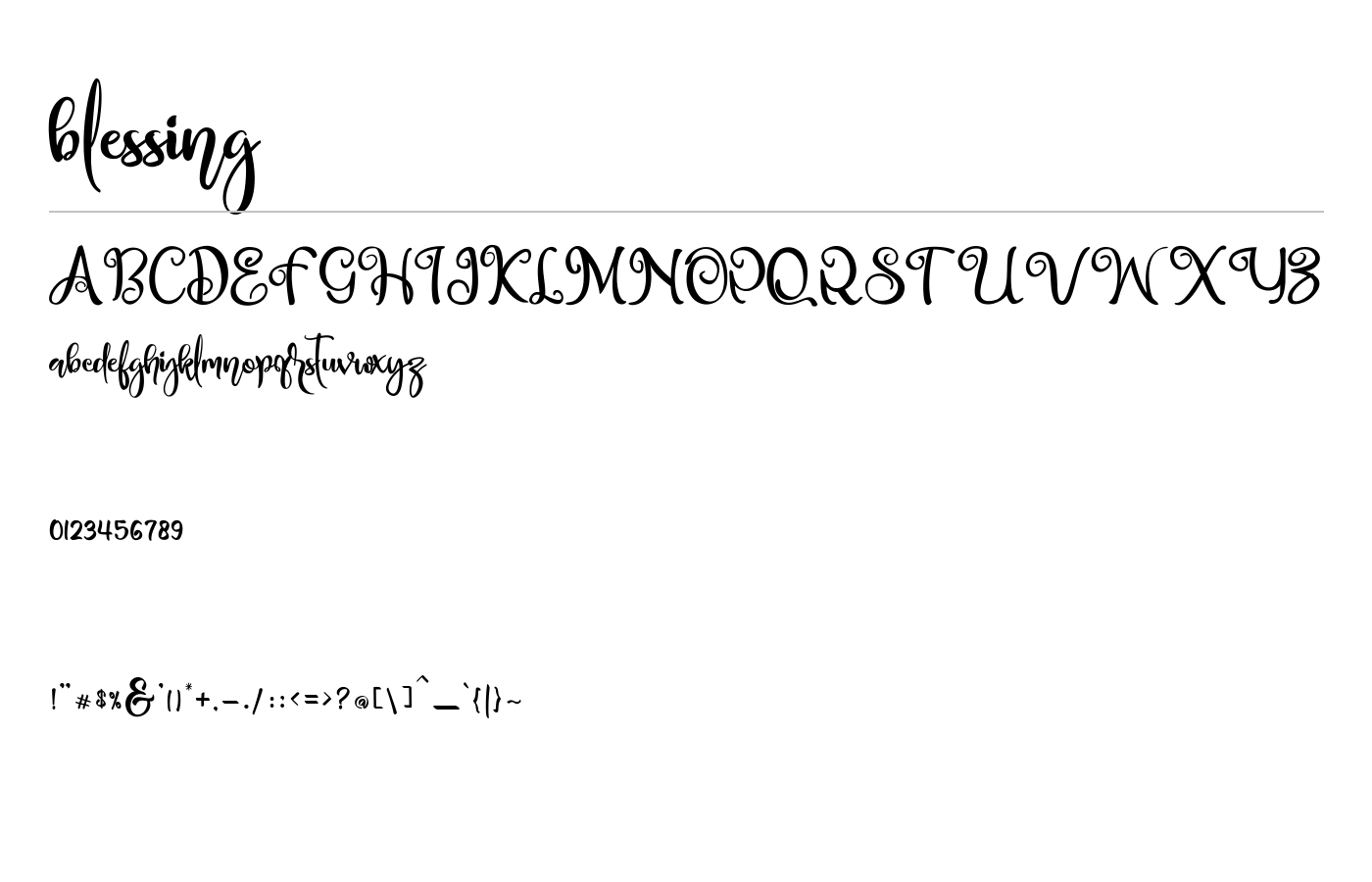
Blessing Font is a playful, decorative script typeface with a casual yet elegant feel. Its lively swashes and curls in both uppercase and lowercase letters offer a hand-drawn charm, making it perfect for creative branding, invitations, or feminine design projects that want to convey warmth and personality. This font works best in headlines and logos where its unique stylistic details can truly shine.
blessing Font
About blessing Font